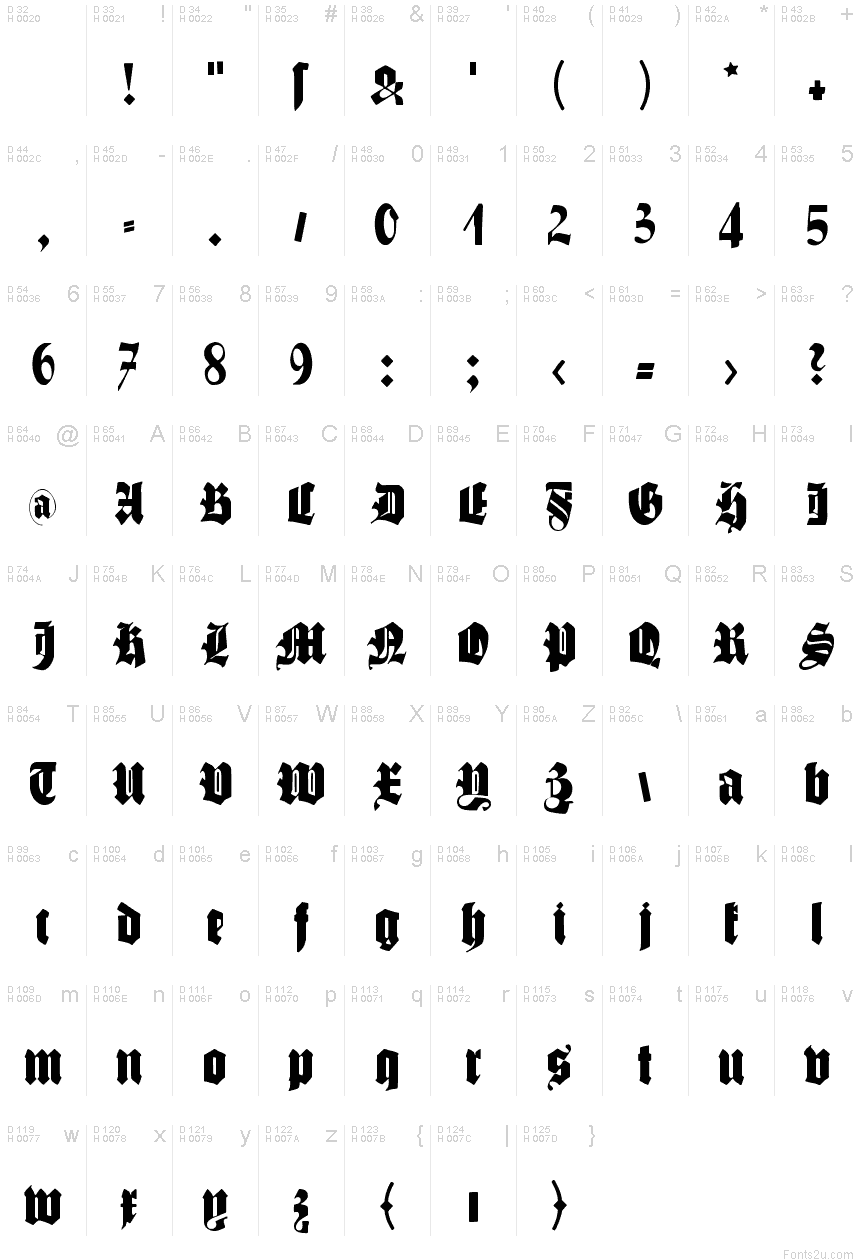
SchmalfetteGotisch
Schmalfette Gotisch, created by Herr Schneidler, Manfred Klein, and Petra Heidorn of typOasis, is a free blackletter font with a dense, forceful silhouette. Its narrow letters combine blunt vertical strokes with sharp peaks and angular joins.
As a period-specific title, it can turn historical posters and event programs into something resembling old, carved Gothic signage. The same pointed forms also suit metal album covers, fantasy game graphics, and dark beer packaging, where the lettering can become part of an emblem.